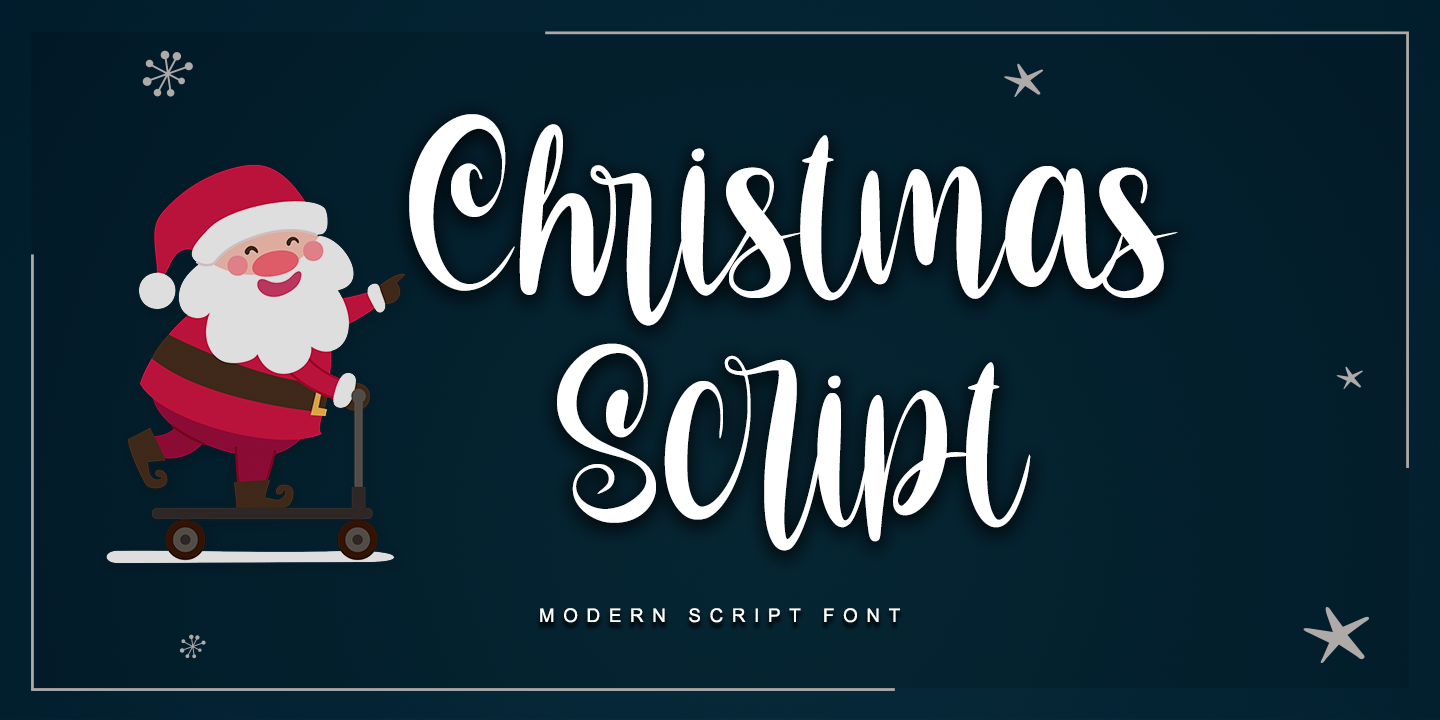
Christmas Script Font is perfect for holiday greeting cards, Christmas party invitations, festive packaging designs, seasonal marketing campaigns, holiday stationery, Christmas decoration graphics, winter celebration materials, and elegant festive typography.
What makes Christmas Script Font exciting is its festive elegant character that embodies Christmas magic and holiday warmth through flowing script letterforms and seasonal appeal. This enchanting typeface features holiday construction, Christmas details, and celebratory personality that captures the essence of Christmas traditions and winter festivities, making it ideal for projects seeking to communicate holiday joy, Christmas spirit, and festive elegance with authentic Christmas appeal and seasonal sophistication.
The Christmas Script Font family includes Regular and Bold weights, each maintaining the characteristic holiday elegance and Christmas appeal that define this distinctive typeface's festive personality and seasonal sophistication.
Christmas Script Font Free Download provides access to a typeface that perfectly captures the essence of Christmas celebration and holiday elegance. This festive font brings authentic Christmas aesthetics to contemporary projects, making it essential for holiday retailers, Christmas event planners, and seasonal brands targeting audiences who celebrate Christmas traditions and embrace holiday magic. The font's Christmas construction and festive details ensure immediate recognition of holiday spirit while its distinctive character creates warm connections among individuals seeking Christmas experiences and holiday celebration. Whether designing Christmas greeting materials, holiday party campaigns, or festive brand communications, this font delivers the Christmas authenticity and holiday sophistication that Christmas enthusiasts expect. Its Christmas foundation and holiday symbolism make it indispensable for projects celebrating Christmas traditions, holiday joy, and the magical spirit of Christmas season, ensuring communications resonate with audiences who value the Christmas warmth, holiday celebration, and festive magic that define authentic Christmas experiences and seasonal holiday festivities across diverse Christmas and holiday applications.